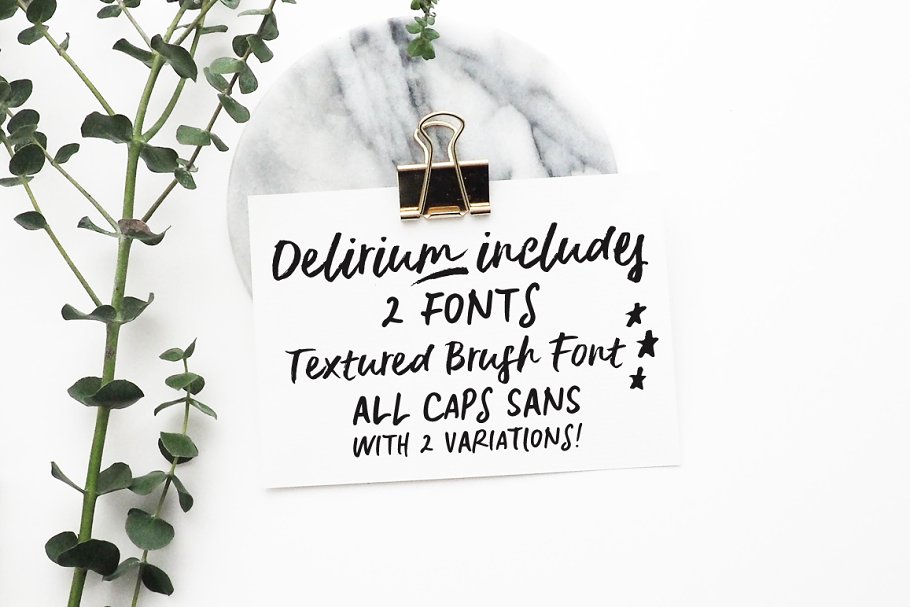
Introducing Delirium, the brush font duo that will take your designs to the next level! Created by the talented Ana Parracho, this font family is perfect for those seeking the best font for ornaments. Delirium includes two stunning fonts that work seamlessly together to give your designs a unique and captivating look.
First, we have the textured brush font with ligatures, adding depth and character to your text. It's like a brush stroke straight from an artist's hand, creating a beautiful and authentic handwritten feel. The attention to detail in this font is remarkable, making it a true work of art.
Next, we have the casual all-caps font with different upper and lower case characters. This font adds a touch of informality and a natural handwritten feel to your designs. It's perfect for adding a personal and friendly touch to logos, quotes, cards, social media posts, websites, magazines, packaging, and so much more.
But that's not all! Delirium also comes with two sets of swashes and ornaments that perfectly complement each font. These decorative elements add an extra layer of elegance and sophistication to your designs, making them truly stand out from the crowd.
With Delirium, creating beautiful designs has never been easier. It's a versatile font duo that opens endless possibilities for your creativity. Let your imagination run wild and see your ideas come to life with this exceptional font.